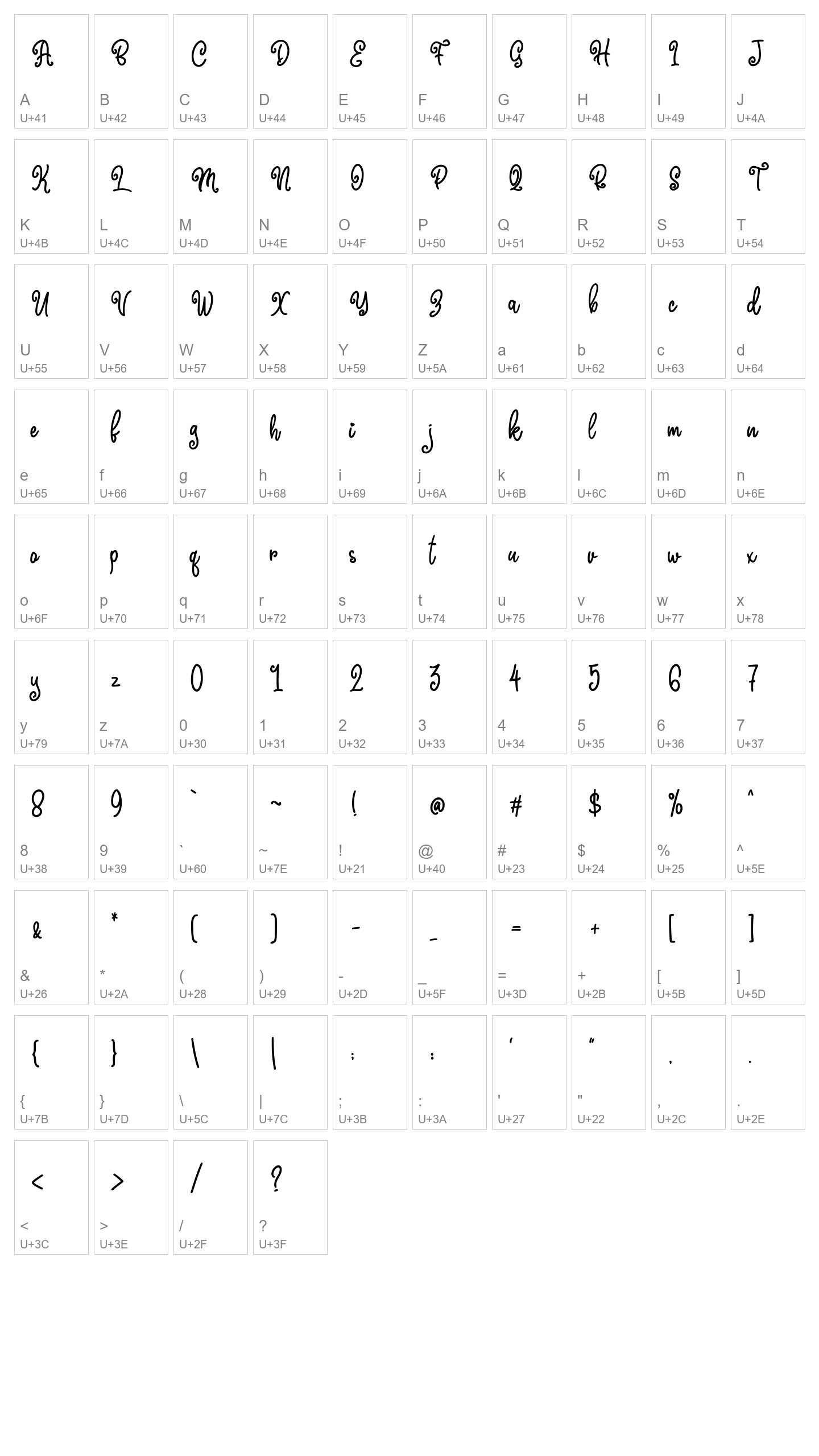
Marline
Marline font. Being made from a chic monoline, this font will make your designs more beautiful. It is surely suitable for any designs, like book covers, signs, t-shirt printings, etc.
Numerals and Punctuations